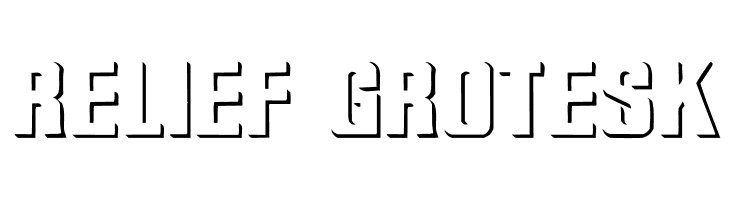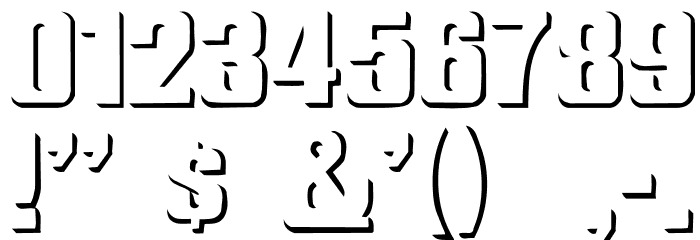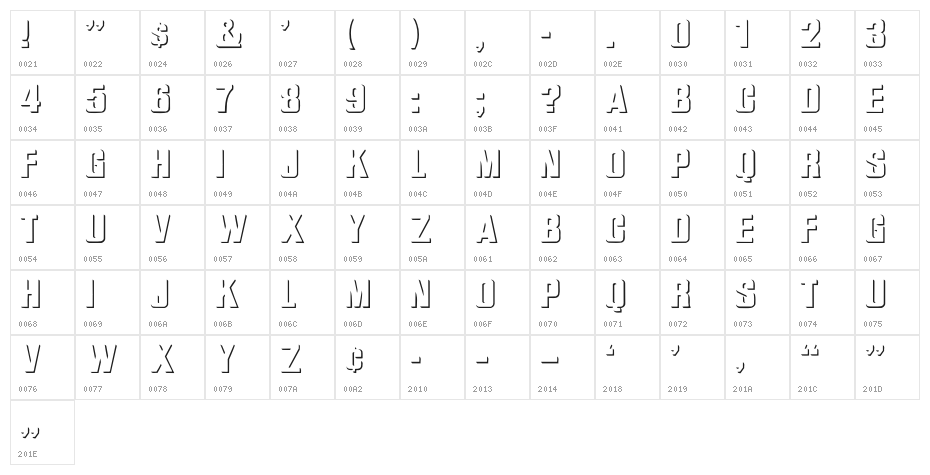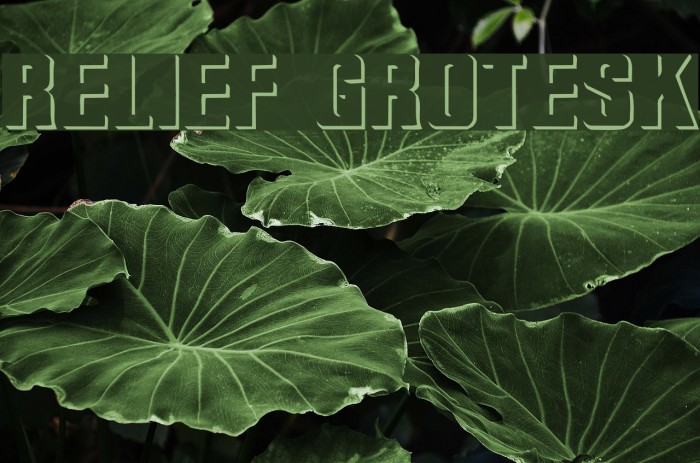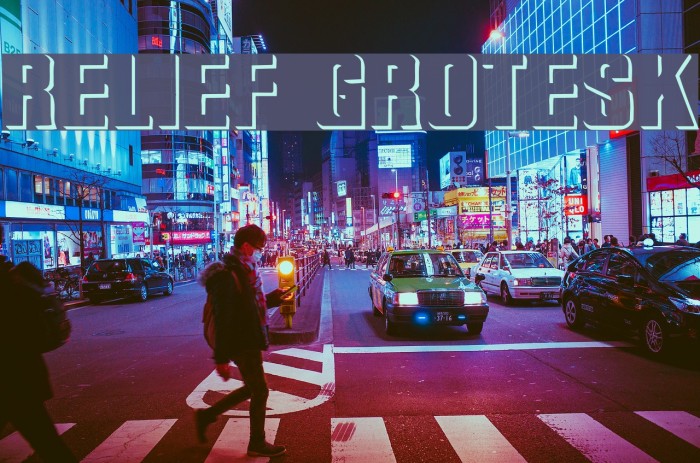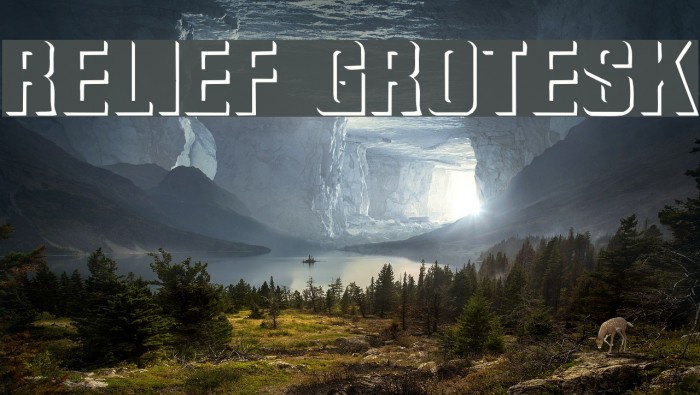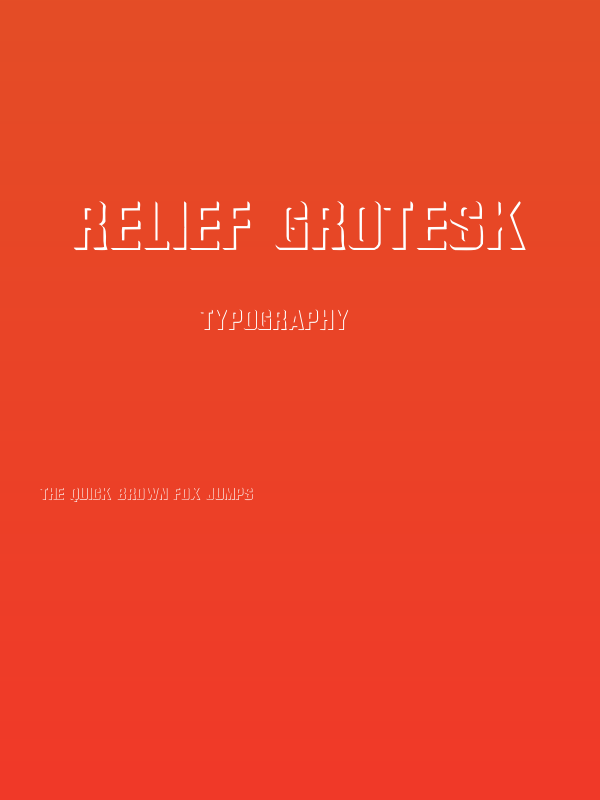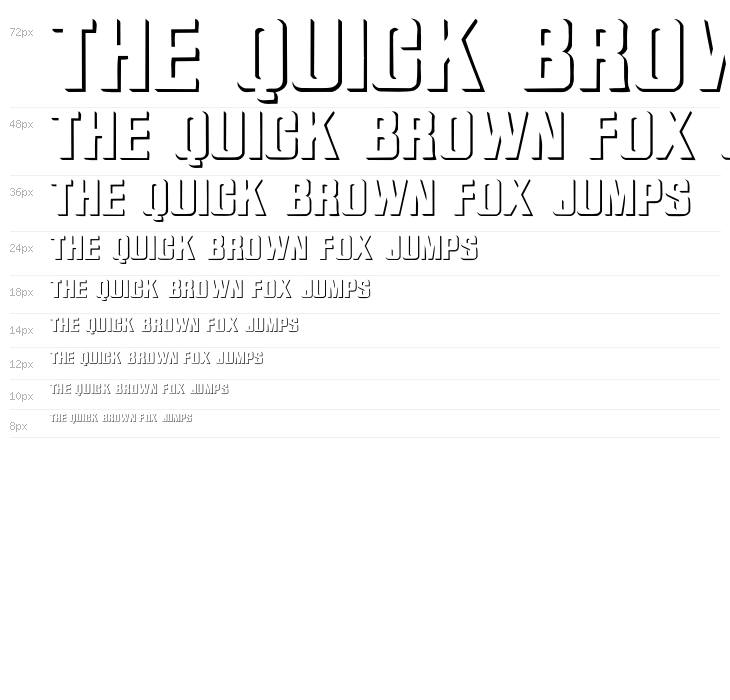
Relief Grotesk Font
Relief Grotesk Description
This font features a bold, three-dimensional appearance with a distinct shadow effect that gives it a sense of depth and relief. The characters are uppercase and lowercase with a consistent geometric structure, providing a modern and industrial feel. The numbers and special characters maintain the same style, ensuring uniformity across all glyphs. The design is clean and impactful, making it suitable for attention-grabbing headlines or display purposes. Its unique style is both functional and decorative, offering versatility in various design contexts.
| Proposed Projects | Ideal for posters, signage, branding, and any project requiring a strong visual impact. |